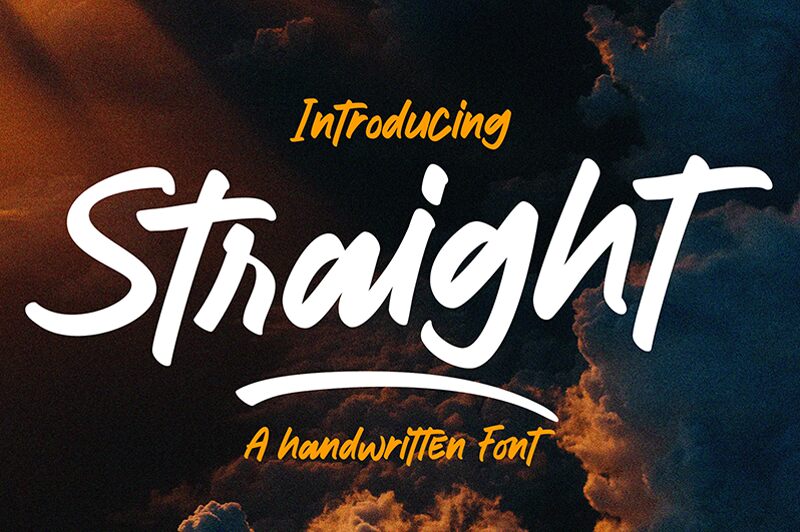
Straight, the handwritten font designed by MJType, adds a personal touch to any project. With its playful curves and bold strokes, it brings a sense of warmth and approachability to your designs. Whether you're creating invitations for a fun birthday party or designing a logo for an organic food brand, Straight is the perfect choice. Its semi-bold typeface is suitable for both headlines and body text, while its medium width ensures readability in any size. Make your projects stand out with the unique charm of Straight - the handwritten font that captures your personality in every stroke.